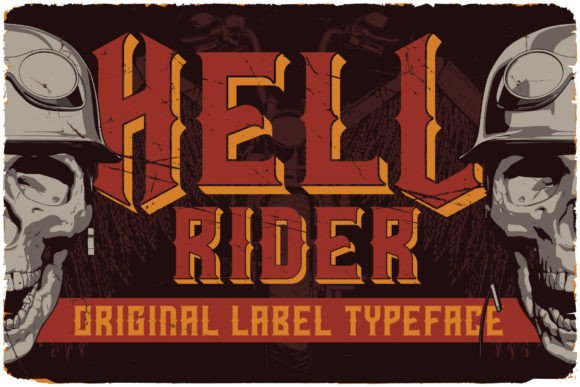
Introducing Hell Rider Font, a blackletter font that will ignite your creativity and transport you to the daring world of tattoos. Created by the masterminds at Vozzy Vintage Fonts And Graphics, this font is not just a collection of letters, but a symbol of strength and rebellion.
Hell Rider Font is the epitome of badass fonts for tattoos. Its edgy and bold lettering will make your tattoo designs come to life, leaving a lasting impression on anyone who sees them. The weathered edges of this font add a touch of nostalgia, reminding you of the rugged spirit of the open road.
But Hell Rider Font is not limited to tattoos. Its versatility extends to a wide range of design projects. Are you working on classic labels that need a touch of authenticity? Look no further. This font will transport your labels back in time, giving them a vintage-inspired charm that cannot be ignored.
Vintage-inspired packaging is another area where Hell Rider Font shines. With its rebellious charm, this font adds a timeless and adventurous element to your packaging designs. Imagine your product standing out on the shelves, catching the eye of every customer with its captivating label.
Retro posters are a passion of yours? Hell Rider Font is the missing piece of the puzzle. It infuses your posters with a sense of rebellion, perfectly capturing the essence of the era. Let your designs transport people back in time, evoking emotions and memories that only a font like Hell Rider can achieve.
In conclusion, Hell Rider Font is more than just a font. It is a journey, a statement, and an experience. It brings out the adventurer in you, fueling your creativity and pushing the boundaries of design. Whether you're a tattoo artist, a label designer, a packaging enthusiast, or a poster lover, this font is your ticket to unlocking the true potential of your projects.